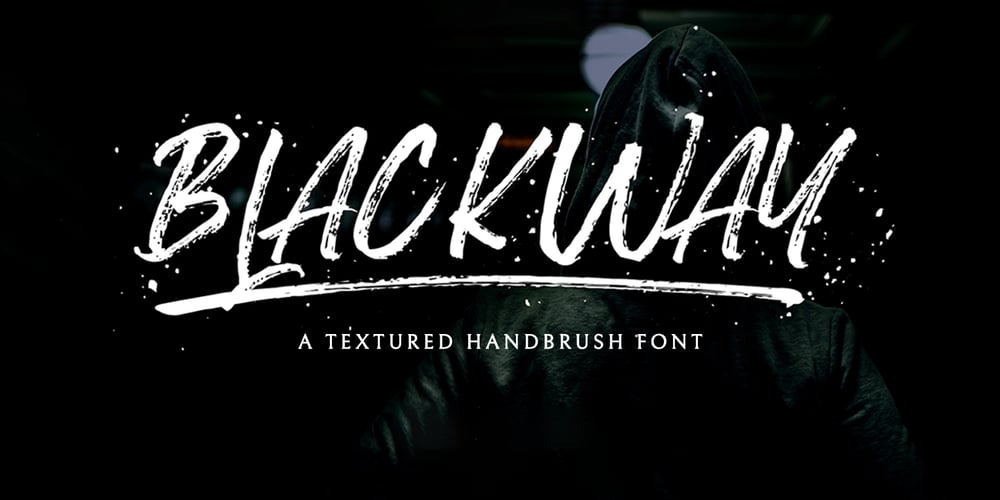
Blackway Brush Font Family was designed by Virgiawan Listanto and published by Stringlabs Creative Studio. Blackway Brush contains 1 styles and family package options. Blackway is a raw and natural handdrawn display font that radiates authenticity. Fall in love with its modern charm! Blackway is a handbrush font with a great personality for outdoor or events.It will elevate a wide range of design projects to the highest level, be it branding, headings, wedding designs, invitations, signatures, logos, labels, and much more!